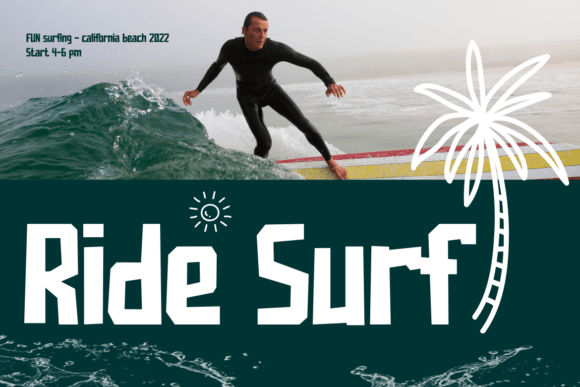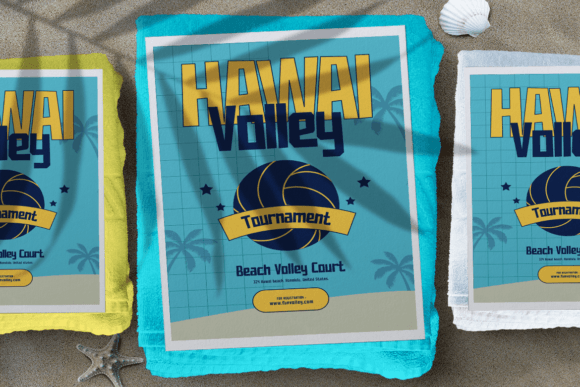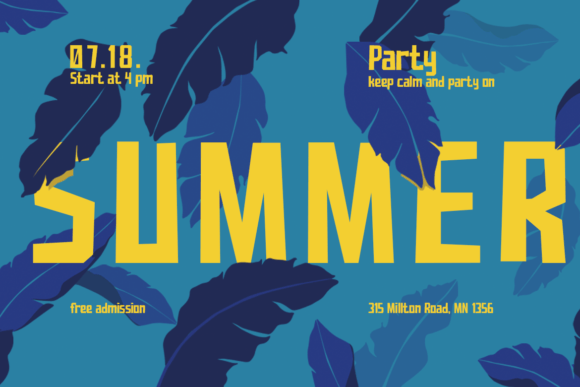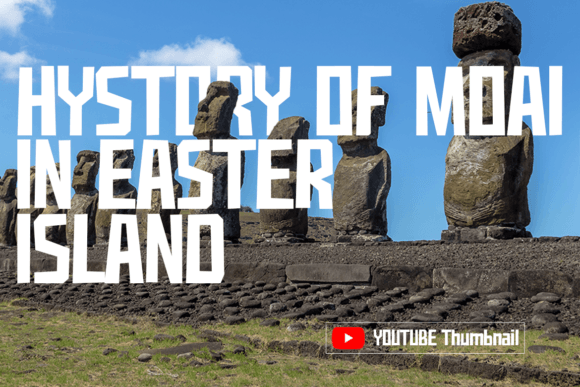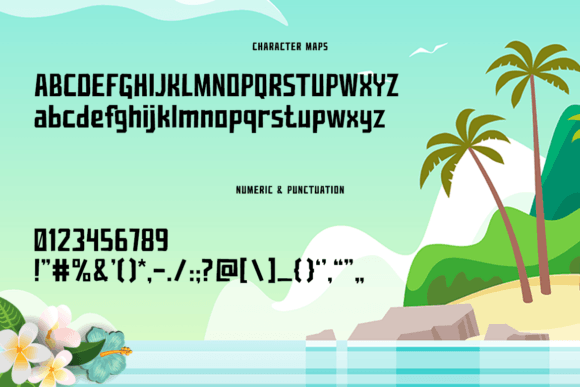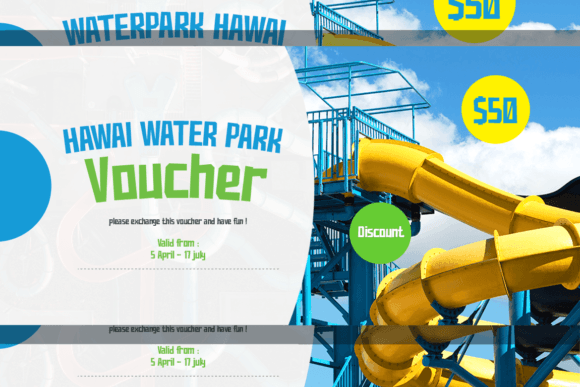
Hawainas Font: Bringing Tropical Hawaiian Vibes to Your Design Projects
Are you looking for a font that can instantly evoke the fresh and carefree spirit of Hawaiian beaches? Look no further than Hawainas Font, a bold display font designed to bring a touch of tropical paradise to your design projects. In this article, we’ll dive into the features and benefits of Hawainas Font, and explore how it can elevate your designs for various applications.
What is Hawainas Font?
Hawainas Font is a stylish and modern display font that captures the essence of Hawaiian beach culture. With its bold and eye-catching design, it’s perfect for creating attention-grabbing headlines, titles, and posters that scream tropical vibes. The font features a unique blend of curved and straight lines, giving it a distinctive and refreshing look that’s sure to stand out.
Key Features of Hawainas Font
- Bold and eye-catching design: Hawainas Font is designed to make a statement, with bold lines and a confident style that’s perfect for grabbing attention.
- Tropical Hawaiian vibes: The font’s unique design elements evoke the fresh and carefree spirit of Hawaiian beaches, making it perfect for projects that require a tropical twist.
- Highly versatile: Hawainas Font can be used for a wide range of applications, from posters and movie titles to social media covers and online games.
- Easy to read: Despite its bold design, Hawainas Font is surprisingly easy to read, making it perfect for headlines, titles, and short paragraphs.
Hawainas Font is an incredibly versatile font that can be used for a wide range of design projects. Here are some ideas to get you started:
- Tropical books market: Create eye-catching book covers and titles that transport readers to a tropical paradise.
- Online games: Add a touch of tropical fun to your game designs, from character names to menu titles.
- Teen event posters: Create bold and attention-grabbing posters for teen events, such as concerts, festivals, or parties.
- School supplies font: Use Hawainas Font to create fun and colorful designs for school supplies, such as notebooks, stickers, or folders.
- Posters and movie titles: Create bold and eye-catching titles for movies, TV shows, or events that require a tropical twist.
- YouTube covers and thumbnails: Stand out on YouTube with bold and attention-grabbing covers and thumbnails that showcase your brand’s personality.
- Social media page covers: Create stunning social media page covers that reflect your brand’s tropical vibe.
Why Choose Hawainas Font?
With so many fonts available, why choose Hawainas Font? Here are just a few reasons:
- Unique and distinctive design: Hawainas Font offers a fresh and unique design that’s sure to stand out in a crowded design landscape.
- High-quality and versatile: The font is designed to be highly versatile, making it perfect for a wide range of applications and design projects.
In conclusion, Hawainas Font is a bold and stylish display font that’s perfect for designers and crafters looking to add a touch of tropical Hawaiian vibes to their projects. With its unique design, versatility, and ease of use, Hawainas Font is an excellent choice for a wide range of design applications. So why wait? Download Hawainas Font today and start creating stunning designs that transport your audience to a tropical paradise!